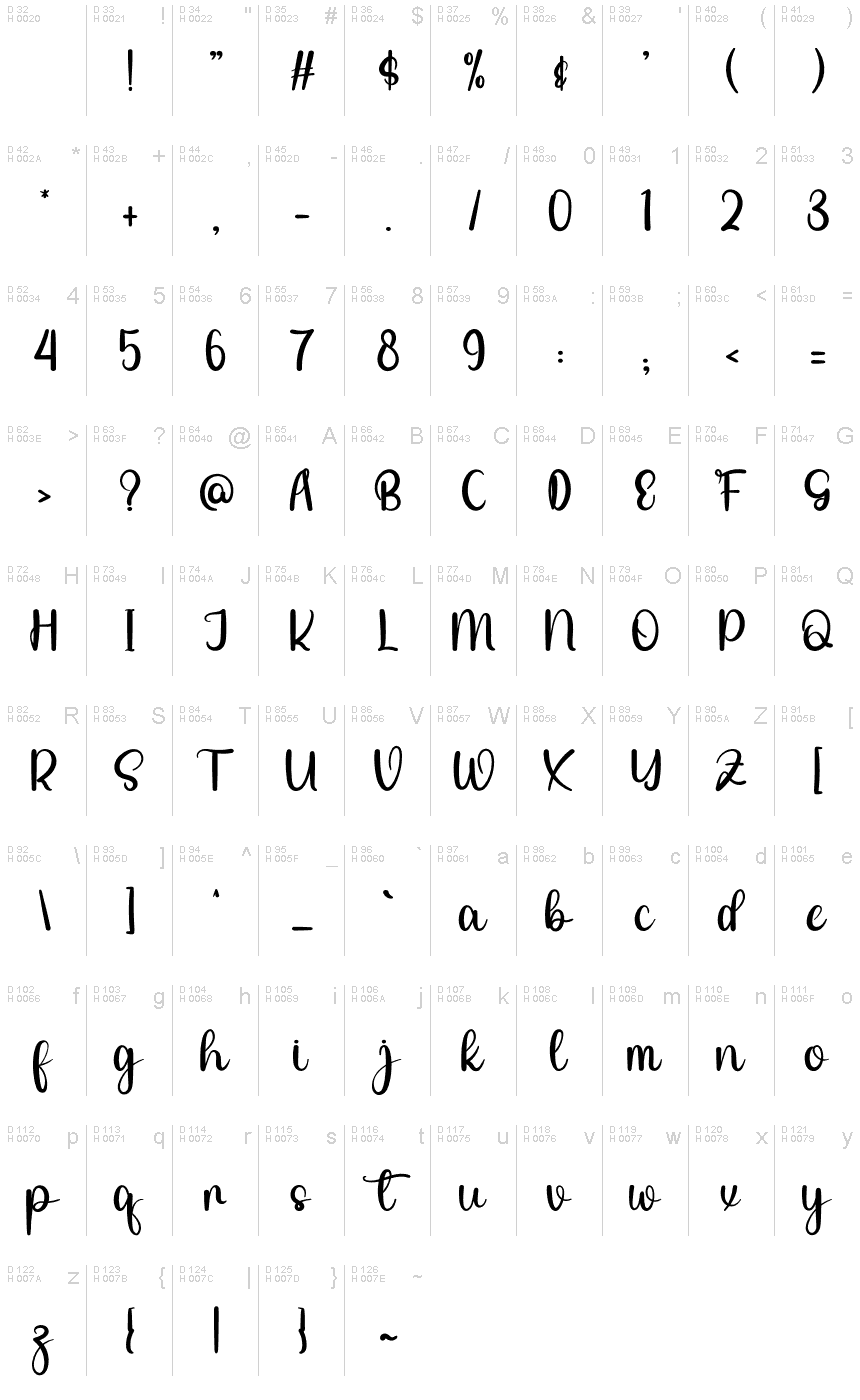
Casanova
Casanova font by Inermedia Studio is a lovely semi-bold handwritten typeface. It's perfect for crafting romantic cards, whimsical designs, and stylish logos. Let Casanova bring a unique touch of charm to all your creative projects!